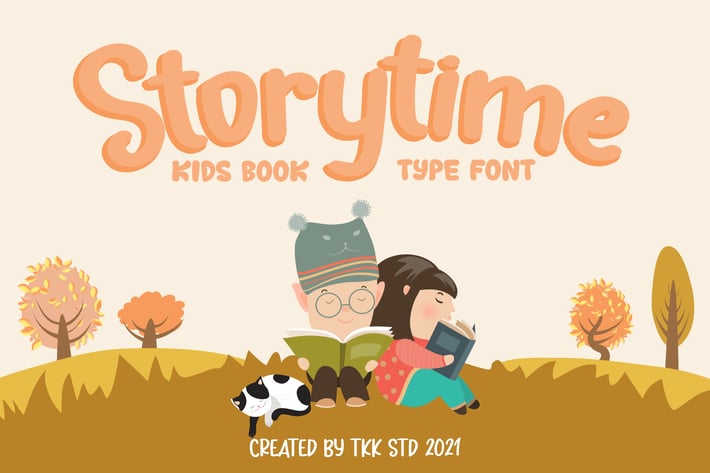
Storytime - Kids book font
StoryTime is a charming, child-focused display typeface designed to evoke imagination and warmth. Crafted with soft curves, a friendly baseline bounce, and subtle irregularities, it gives the impression of a handwritten storybook title. This playful and calm font fits effortlessly into children’s publishing, early education resources, or cozy product packaging. The structure features rounded terminals and a whimsical rhythm, making it highly readable and emotionally resonant.
Whether you're designing a bedtime book cover, creating a cozy reading campaign, or branding a children's festival, StoryTime delivers emotional warmth and narrative charm. Its gentle flow and youthful tone help storytellers, publishers, and designers create joyful, calming experiences for families and young readers. Use it on book titles, nursery posters, book-themed apparel, or apps designed for early literacy and parent-child bonding.
Key Features :
A Type Style Built for Childhood Magic
- Rounded, bouncy baseline with friendly forms
Mimics a playful, handwritten style perfect for youth-oriented design
- Balanced legibility with storytelling personality
Tailored for Bookish Brands & Cozy Visuals
- Ideal for children’s books, family events, preschool signage, and quote graphics
Excellent for gift packaging, t-shirt slogans, storytelling YouTube intros
- Invites warmth and trust with every letter